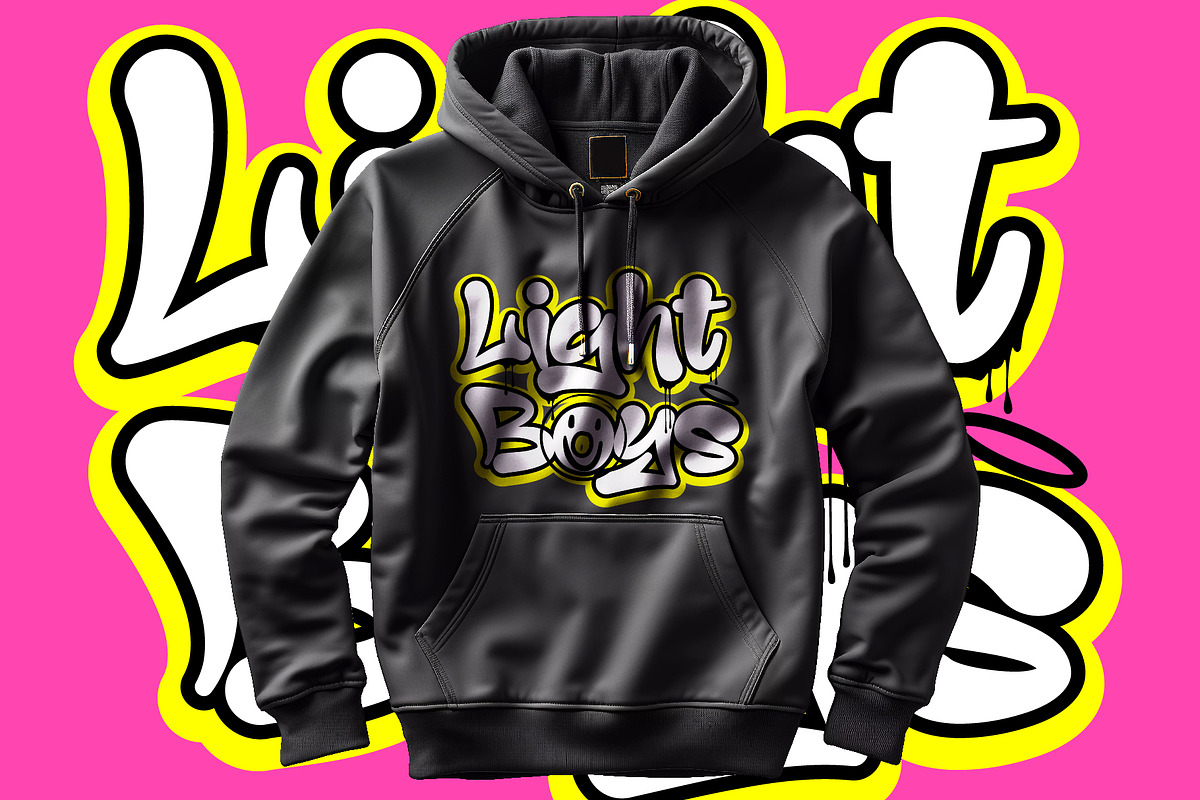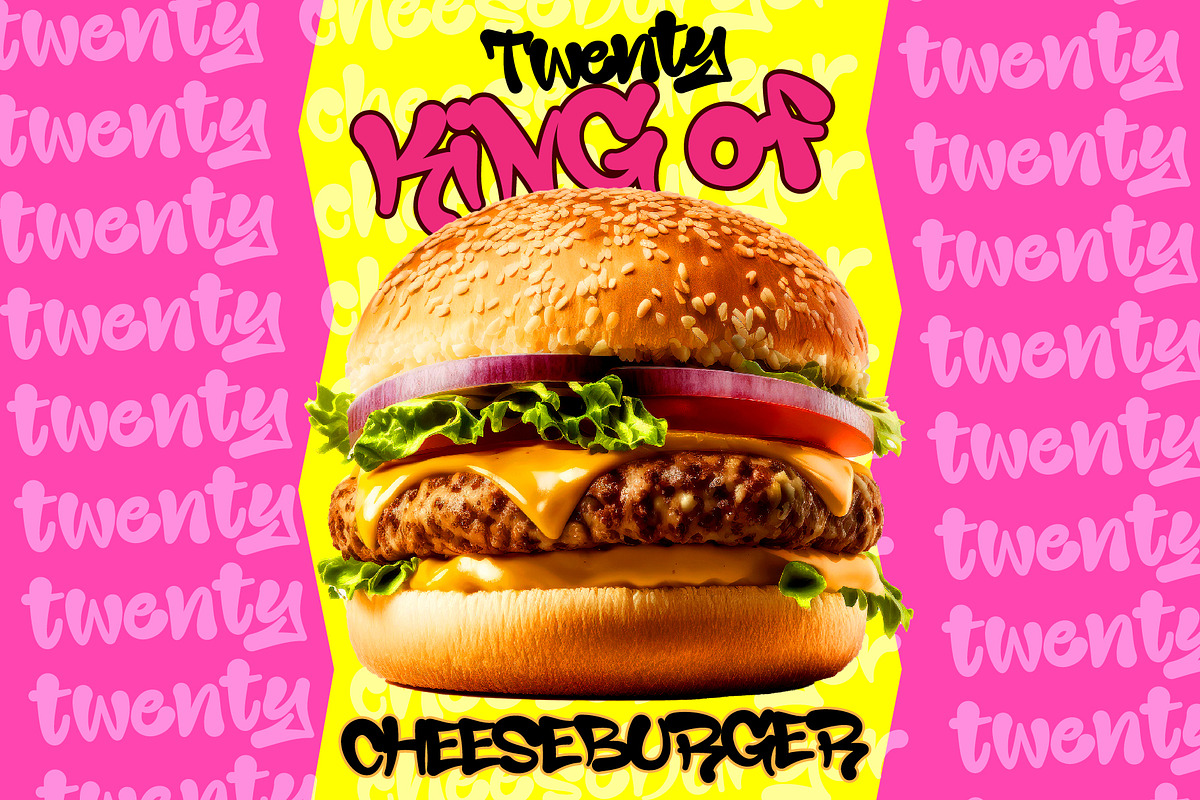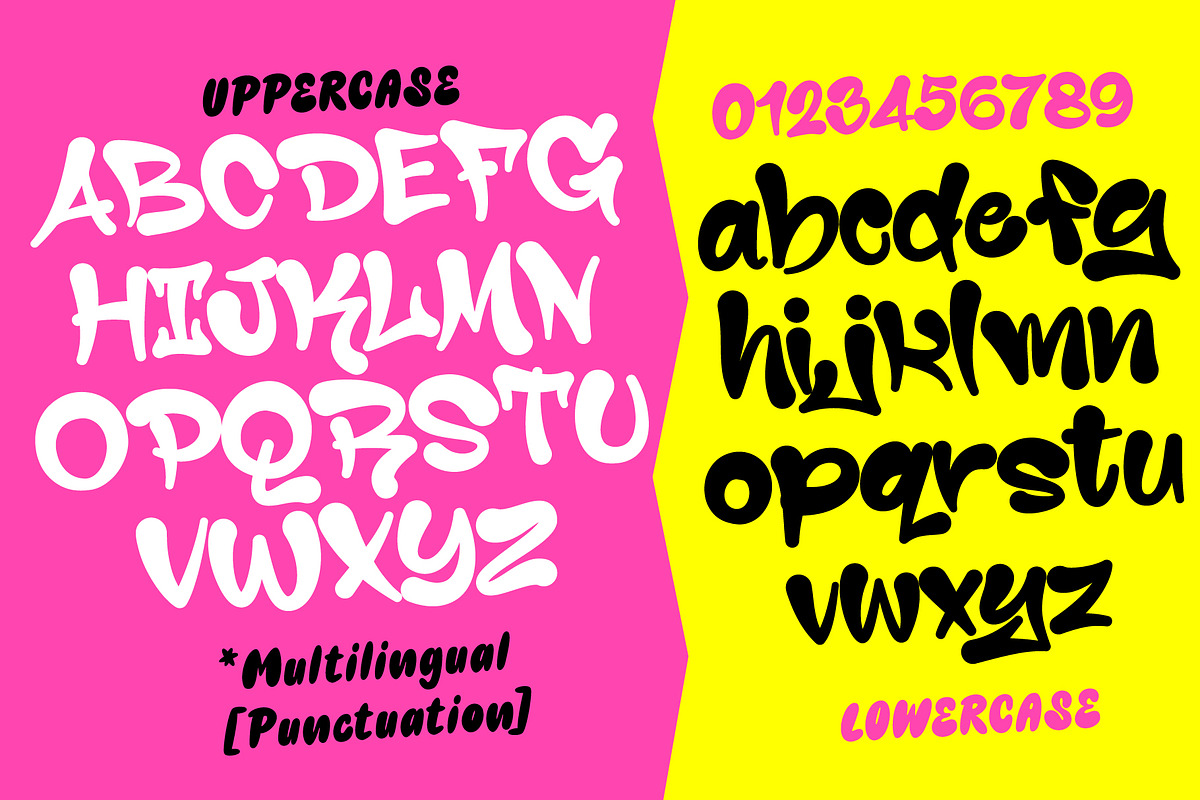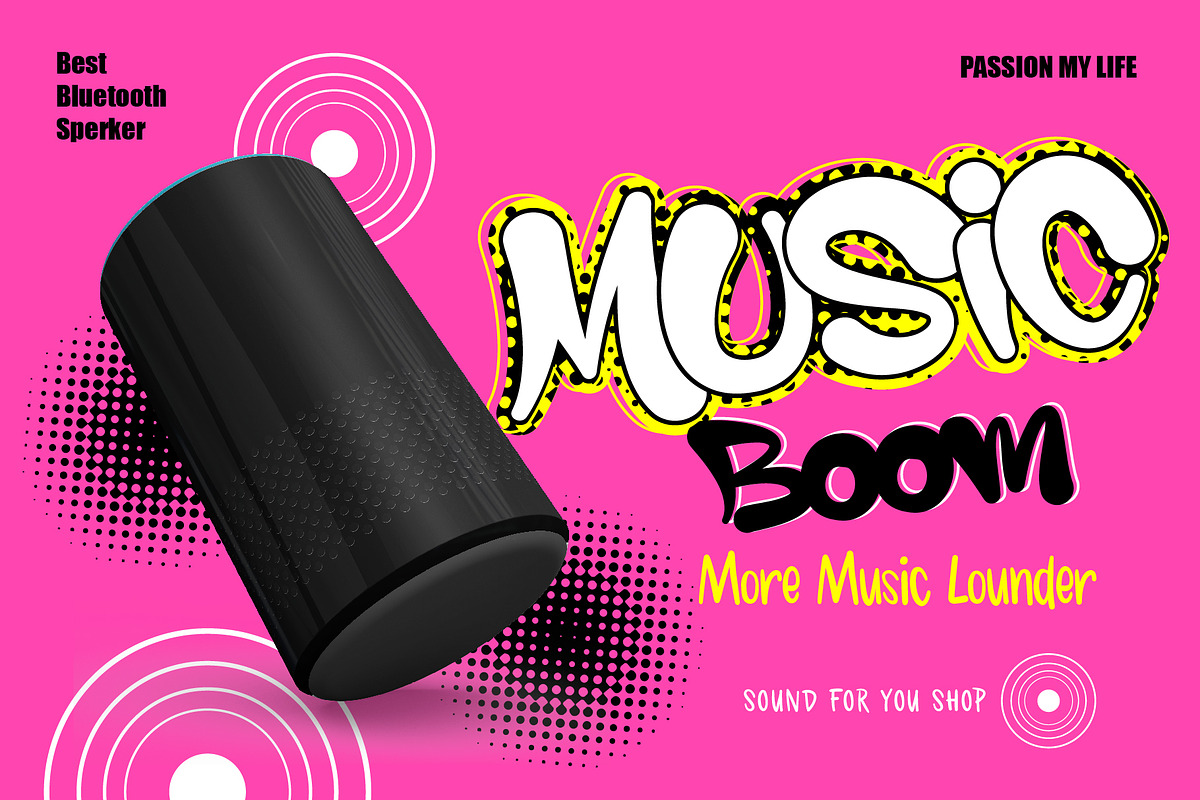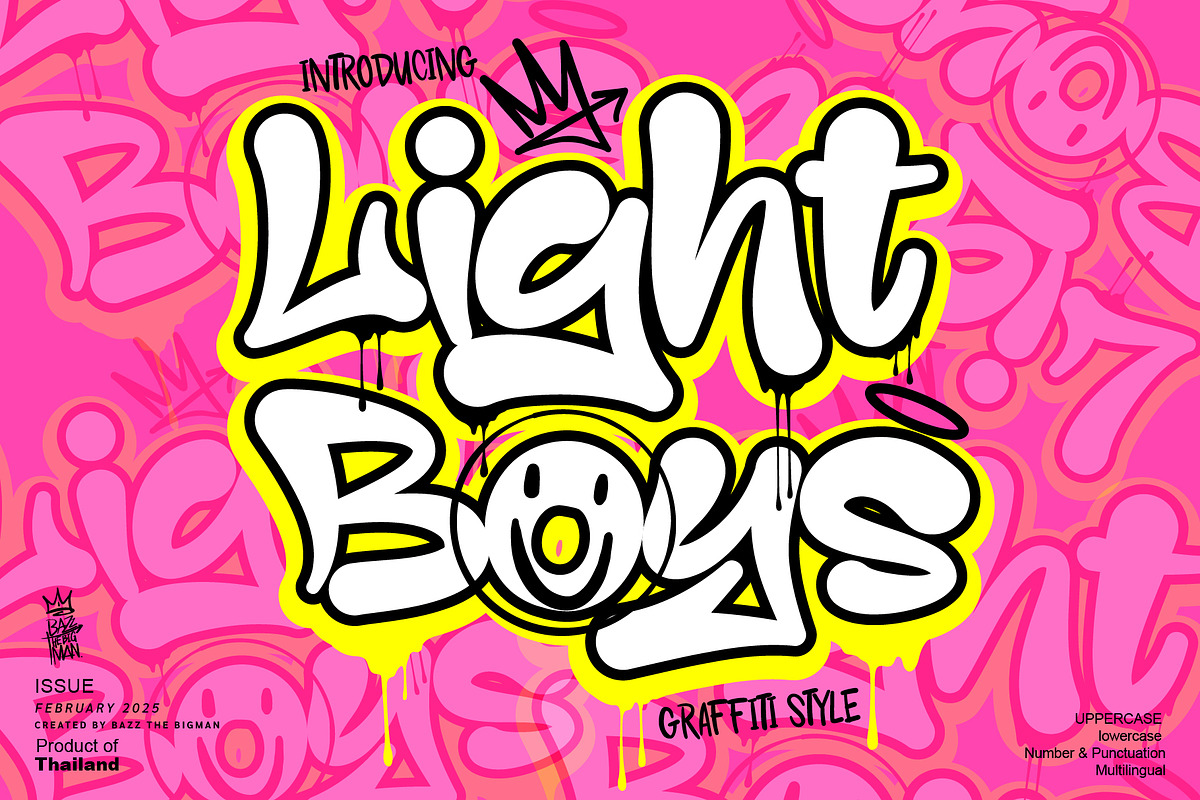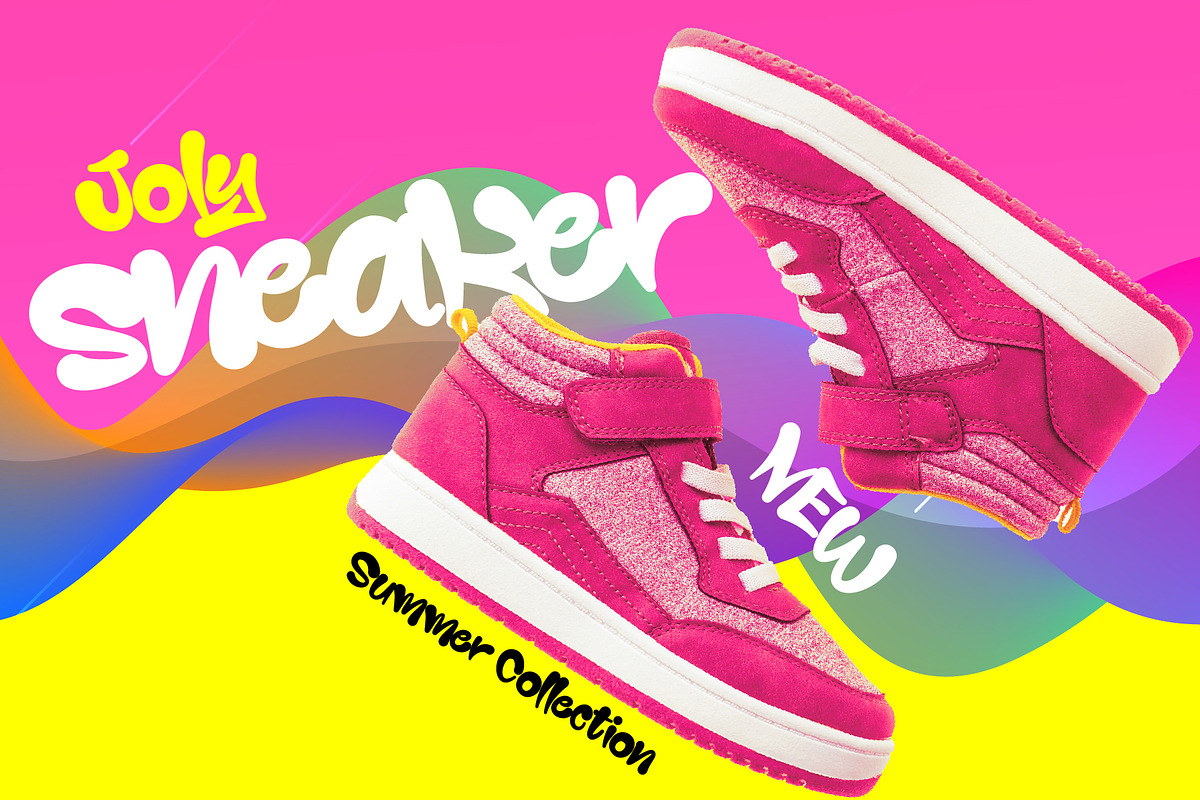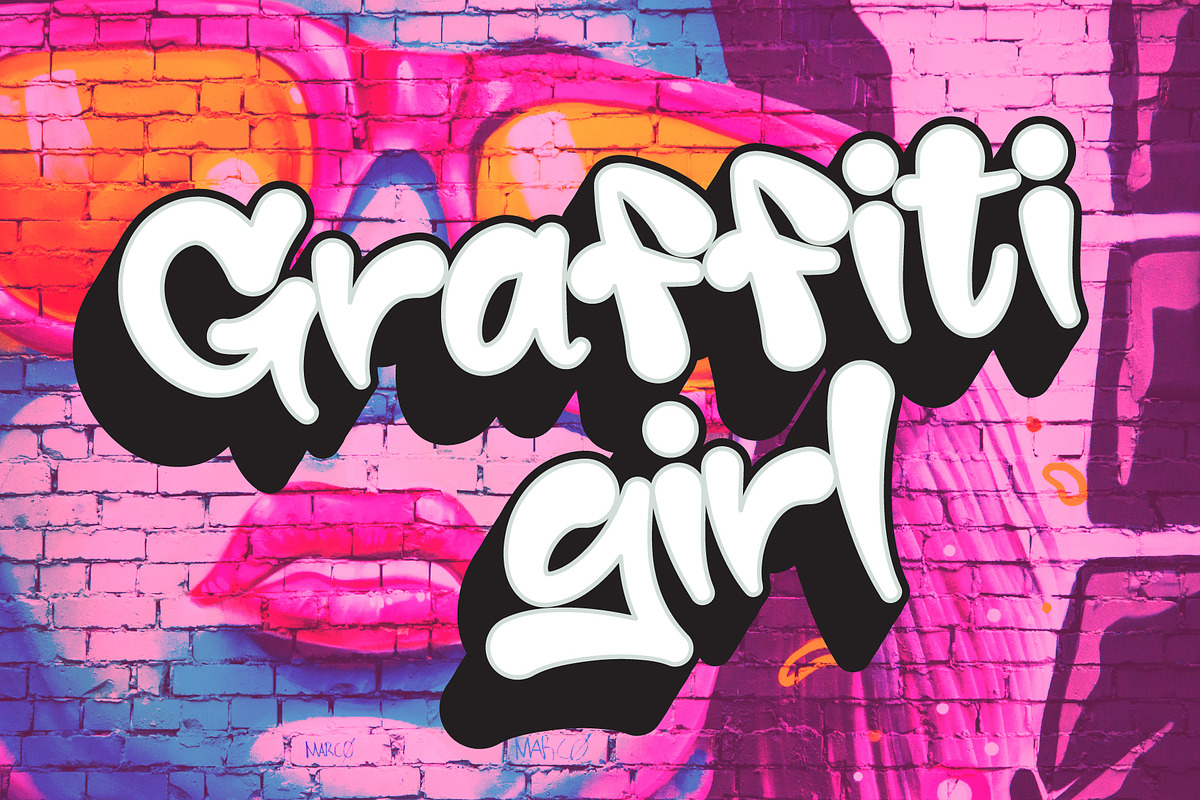
Light Boys
Showcase vibrant creativity with the Light Boys font, an adrenalized mix of graffiti and spray letter styles. This font pulses with a playful, authentic vibe, making it an ideal choice to infuse into your project or to add a street-art-inspired twist to fashion designs, t-shirts, sportswear, and logos. With Light Boys, the possibilities to invigorate your designs are limitless!